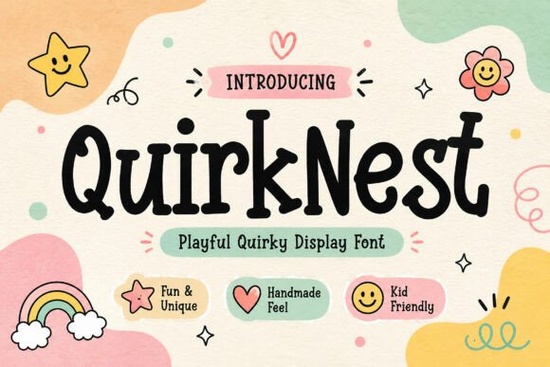
QuirkNest is a playful display font built around soft curves, hand-drawn shapes, and a warm, friendly personality. If you work on kids' products, craft projects, or colorful branding, this typeface gives your designs a cheerful, approachable look without feeling overdone. It's the kind of font that makes people smile the moment they see it and that reaction matters when you're designing for families, children, or fun-focused brands.
What makes QuirkNest different from other playful fonts?
Plenty of display fonts try to look fun, but many end up feeling generic or hard to read at small sizes. QuirkNest takes a different approach. Each letter has its own quirky shape and organic imperfection, which gives the whole typeface a handcrafted quality. The curves are soft, the spacing is balanced, and the overall feel is genuinely warm not cartoonish in an over-the-top way.
That balance matters. You want a font that looks playful but still works across different formats: printed labels, digital graphics, packaging, and social media posts. QuirkNest handles all of those without losing its charm.
What types of projects is QuirkNest best suited for?
This font was designed with a specific creative space in mind. It works especially well for:
- Kids branding and logo design playful enough for children's products, professional enough for real businesses
- Toy packaging and candy labels the handcrafted feel fits naturally with physical products
- Sticker sheets and planner graphics the unique letter shapes add personality to small designs
- Classroom posters and educational materials friendly and easy to read from a distance
- Children's book titles and chapter headings sets a warm, inviting tone
- Social media graphics and digital content stands out in crowded feeds
- Print-on-demand products t-shirts, mugs, tote bags, and notebooks
- DIY craft projects greeting cards, party invitations, scrapbook layouts
Basically, any project that needs to feel joyful and approachable is a good fit for this typeface.
How does QuirkNest compare to other display fonts?
If you've explored display fonts before, you know the range is wide. Some lean bold and loud, others go soft and rounded. QuirkNest sits in that sweet spot between quirky and readable. For comparison, fonts like Summer Komika bring a fun, comic-inspired energy that works well for casual designs. Meanwhile, something like Helpful Action takes a different approach with its own distinct personality.
What sets QuirkNest apart is its handmade warmth. The irregular shapes don't look like a mistake they look intentional and crafted. That's a quality you usually only find in hand-lettering, and having it in a digital font saves a lot of time.
Does QuirkNest work well for print-on-demand sellers?
Yes, and this is where it really shines. Print-on-demand products like t-shirts, hoodies, mugs, and stickers need designs that grab attention quickly. A quirky, memorable typeface can be the difference between someone scrolling past and someone clicking "add to cart."
QuirkNest's letterforms are distinctive enough to be recognizable but clean enough to reproduce well at different sizes. Whether you're printing on a small mug or a large poster, the font holds up. If you also work with bolder, more structured display fonts like Bowlby One, QuirkNest adds a softer, more whimsical option to your toolkit.
Can I pair QuirkNest with other fonts?
Absolutely. Display fonts like QuirkNest work best for headlines, titles, and short text. For body copy or longer descriptions, pair it with a clean sans-serif or a simple serif. The contrast between a playful heading font and a straightforward body font creates a nice visual hierarchy.
You could also mix it with other display styles depending on the project. A Western-themed design might call for pairing it with something like The Western Font, while a music or concert poster might benefit from a pairing with Haydn. The key is keeping contrast so the fonts complement each other instead of competing.
Quick checklist before you start using QuirkNest
- Check the license make sure it covers your intended use (personal, commercial, POD, etc.)
- Test at multiple sizes preview the font at both small and large scales to make sure it reads well
- Pair it wisely use a simple font for body text so QuirkNest can stand out as the headline
- Keep backgrounds clean the quirky letterforms do best against simple, uncluttered backgrounds
- Use it where personality matters most headings, logos, titles, and short phrases where its charm is fully visible
If you're building a library of display fonts for kids' products, POD designs, or creative client work, QuirkNest deserves a spot. It fills that handmade, cheerful space that so many projects need and it does it with genuine personality instead of generic clip-art vibes.